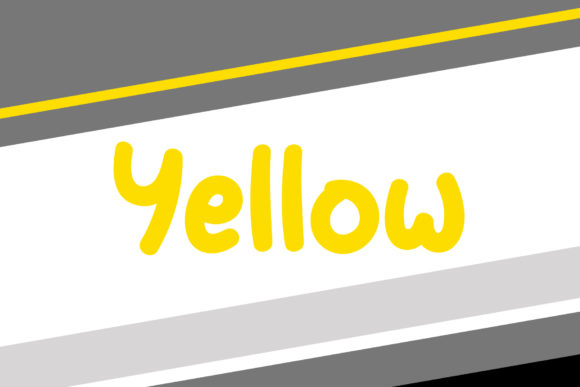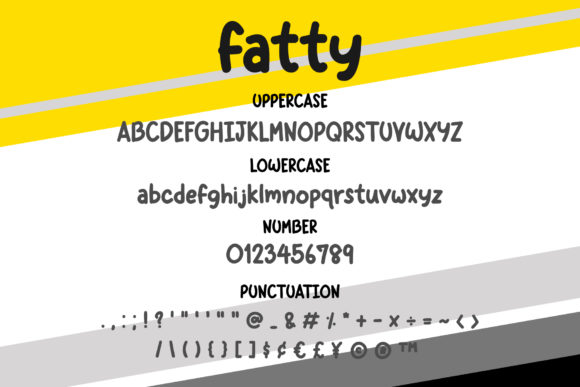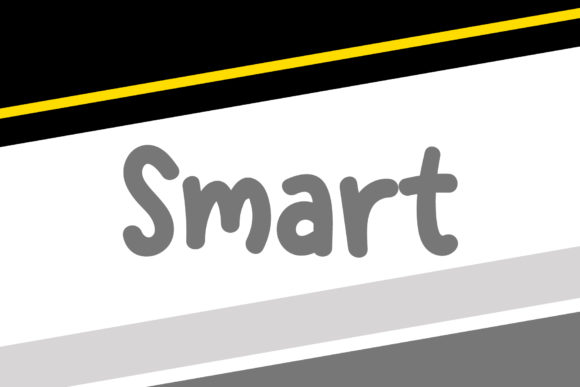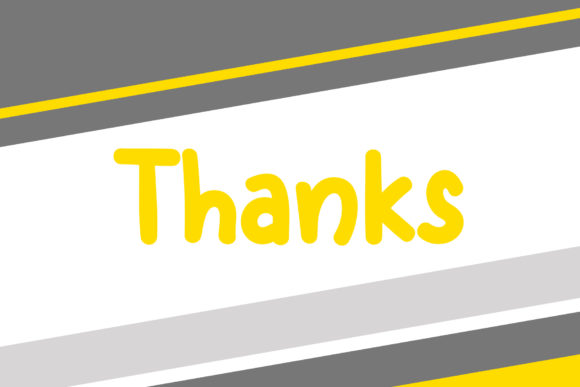
The Moment I Fell in Love with Fatty Font
I still remember the design project that made me fall head over heels for Fatty Font. I was working on a branding project for a trendy new cafe, and I needed a font that would capture their fun and playful vibe. I’d tried a dozen fonts, but none seemed quite right – until I stumbled upon Fatty. Its bold, friendly letters instantly brought my design to life, and I knew I’d found the perfect fit. If you’re a designer, crafter, or creative hobbyist looking for a font that packs a punch, you’re in luck! In this article, we’ll dive into the wonderful world of Fatty Font.
An Honest Review of Fatty Font
- ✅ Super Versatile: Fatty Font is perfect for a wide range of projects, from branding and posters to social media graphics and crafts.
- ✅ Easy to Read: Despite its chunky letters, Fatty Font is surprisingly easy to read, even at smaller sizes.
- ✅ Fun and Friendly: This font has a playful personality that adds a touch of whimsy to any design.
- ✅ High-Quality: Fatty Font is a well-crafted font with clean lines and smooth curves.
- ⚠️ Limited Formality: Fatty Font is a highly informal font, so it may not be the best choice for more formal or professional projects.
- ⚠️ Overuse Can Be Overwhelming: While Fatty Font is amazing, using it for too much text can be overwhelming. Balance it with some simpler fonts for best results.
The Story Behind Fatty Font
Fatty Font was designed with one goal in mind: to create a bold, friendly font that’s easy to read and fun to use. The designer, inspired by classic handwritten fonts, wanted to create something modern and versatile. The result is a font that’s perfect for creative projects, branding, and more.
| Font Name | Fatty Font |
| Author | Wanida Toffy |
Q: Is Fatty Font suitable for body text?
A: While Fatty Font is easy to read, it’s generally best used for headings, titles, and short paragraphs. For longer body text, consider a simpler font.